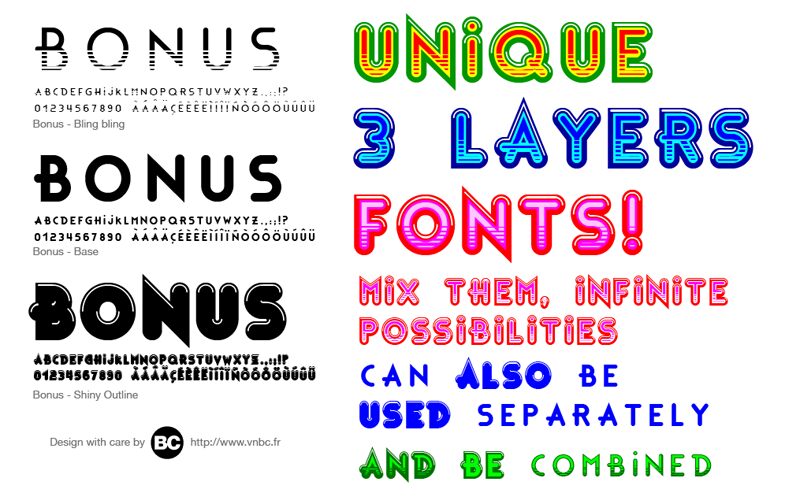
Bonus Bling by BC of BC - Dker is a free futuristic display font with broad, geometric capitals. Clean monoline shapes are interrupted by thin horizontal cuts that resemble scan lines or digital signal breaks. The effect is crisp and controlled.
Posters are its strongest setting, especially for electronic music and technology events. The sliced lettering can also turn game graphics and merchandise into part of a screen-based theme. Those repeating gaps provide a ready-made motif for interface bars, glitch patterns, and other digital artwork.
The Bonus font consists of three layers:
- Bonus Bling Bling
- Bonus Base
- Bonus Shiny Outline
This is the basic layer order. The layers can be combined and colored. Each font can also be used individually; Bonus Base and Bonus Shiny Outline are the most suitable for individual use.